Celebrate the season with holiday-ready Christmas fonts perfect for cards, social banners, gift tags, and shop graphics. Explore script, serif, whimsical, and bold styles curated for festive cheer.
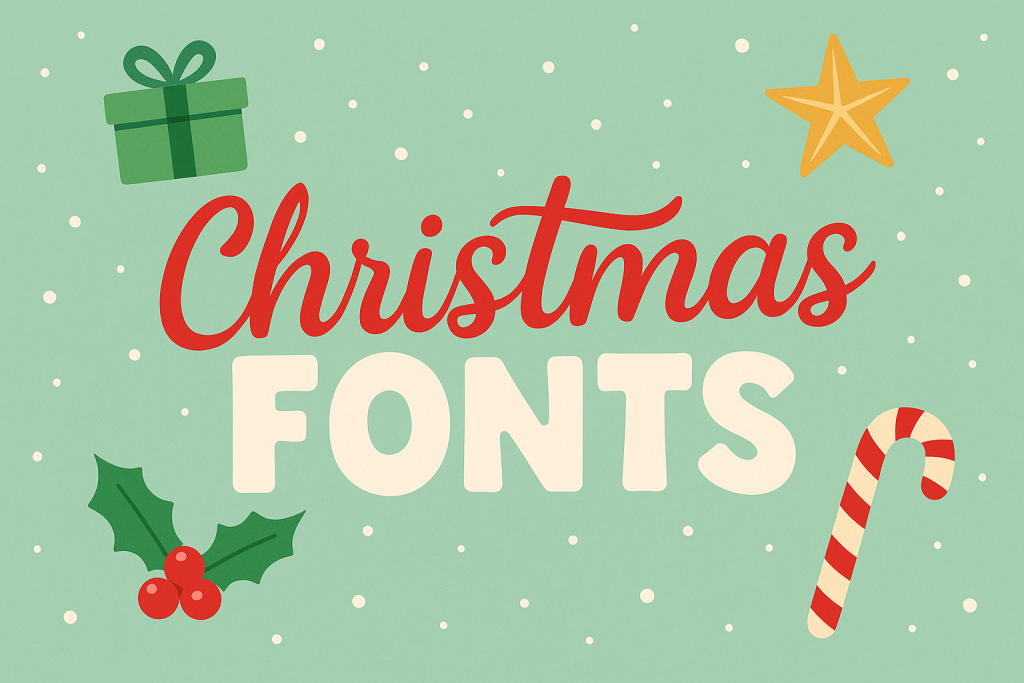
Best Christmas Font Styles (What Works & Why)
Elegant Script / Calligraphy
Perfect for holiday cards, greetings, and overlays. Flourishes add magic.
- Christmas script → – flowing lines and festive swashes
- Holiday calligraphy → – elegant pen-stroke styles
- Winter script → – delicate weight, seasonal feel
- Christmas swash → – decorative alternates and flourishes
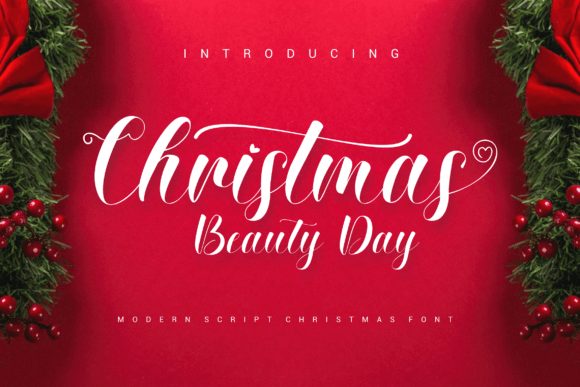
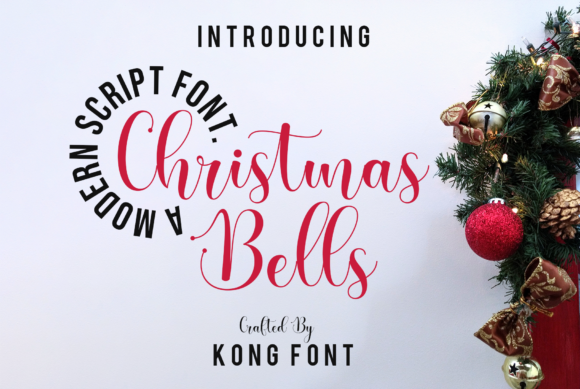
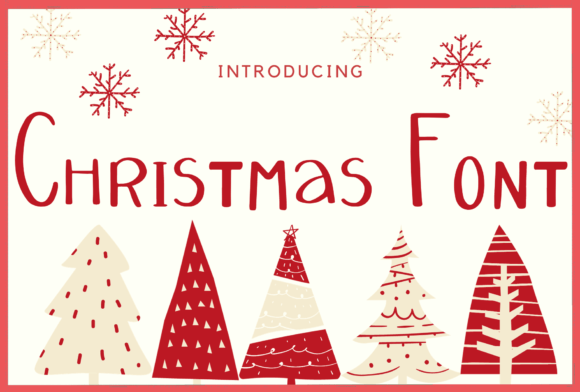
Serif & Classic Holiday
Timeless and readable – good for body text in cards, lists, and cookies packaging.
- Christmas serif → – vintage holiday character
- Winter serif → – crisp with subtle seasonal details
- Elegant serif → – refined for prints & signage
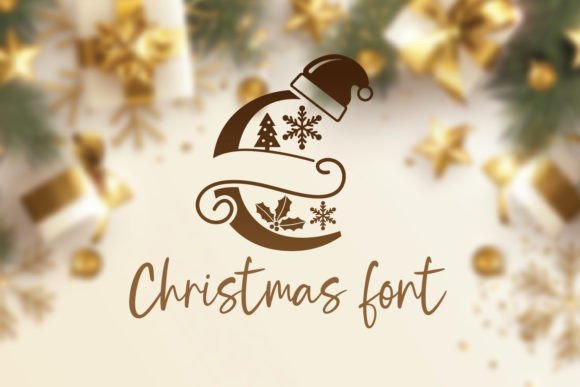
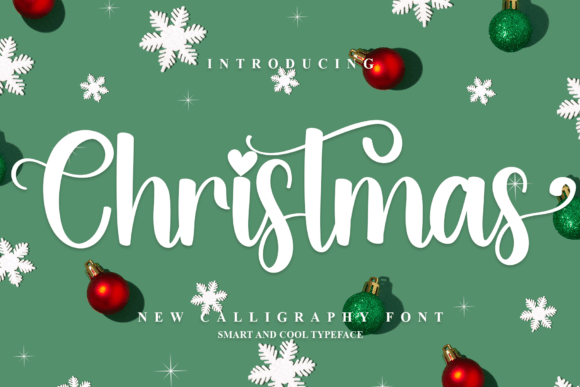
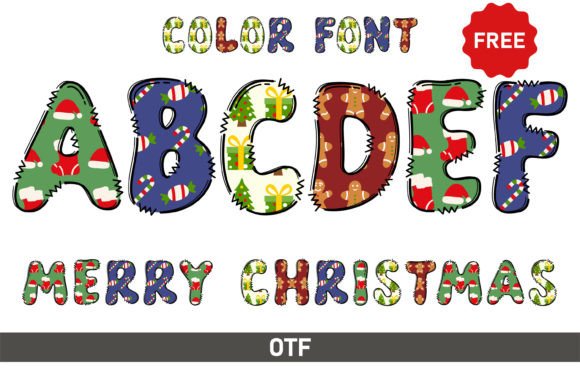
Whimsical / Fun Holiday
Playful fonts to add charm and joy – perfect for kids’ crafts and party flyers.
- Christmas cartoon → – fun shapes and festive icons
- Whimsical holiday → – quirky artwork styles
- Christmas display → – bold, decorative, with seasonal motifs
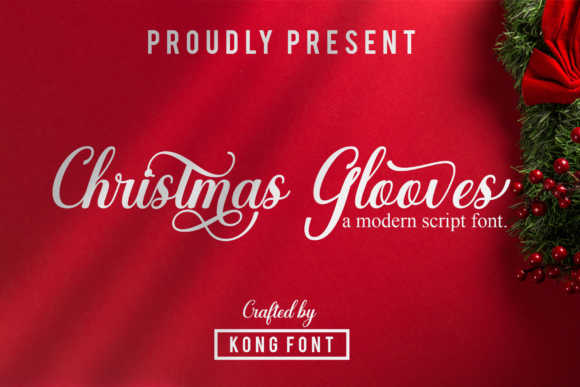
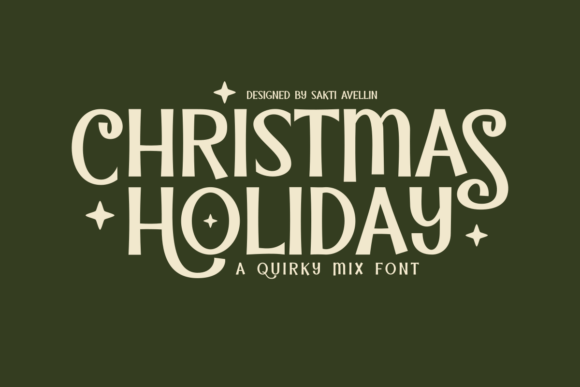
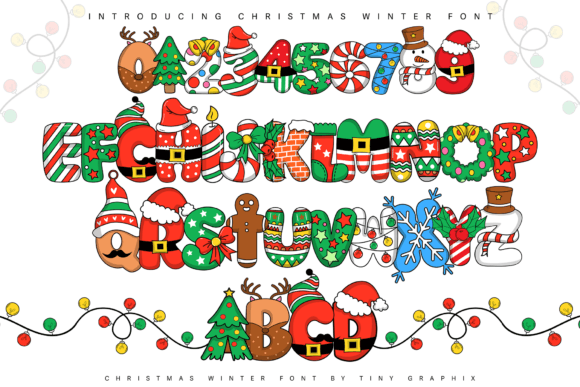
Modern / Minimal Holiday
Clean lines with subtle festive touches – ideal for modern shops and digital marketing.
- Minimal Christmas → – understated, chic
- Scandinavian holiday → – simple, natural feels
- Nordic Christmas → – crisp forms, winter edge
Font Pairing Recipes (Copy & Paste)
- Elegant Script (header) + Serif body – flourish header, readable body
- Whimsical display + Minimal sans – fun accents + clean legibility
- Classic serif + Tabular numbers – perfect for pricing, dates, and tags
- Modern serif + Light decorative stylings – subtle holiday flair without overpowering
One expressive star + one quiet helper – let contrast live in weight and detail, not in chaos.